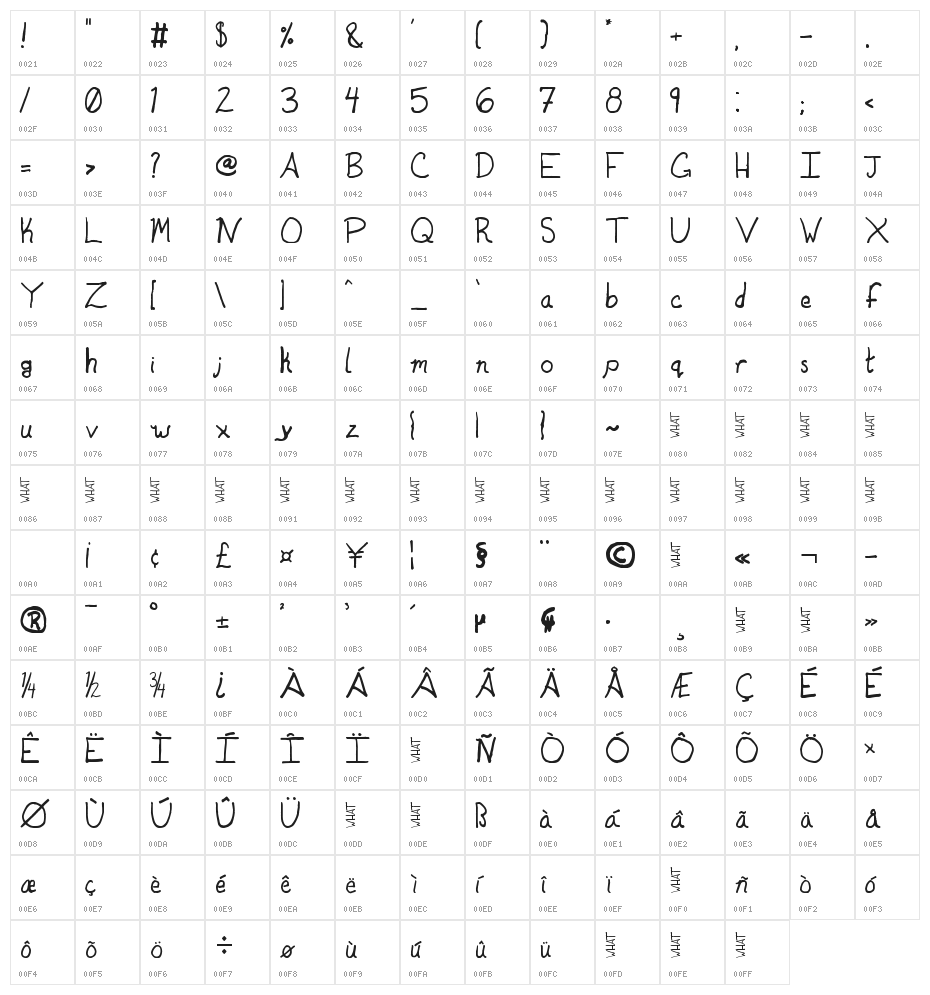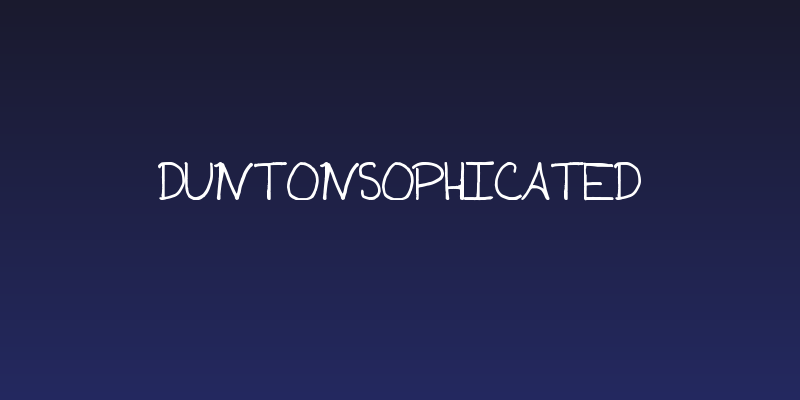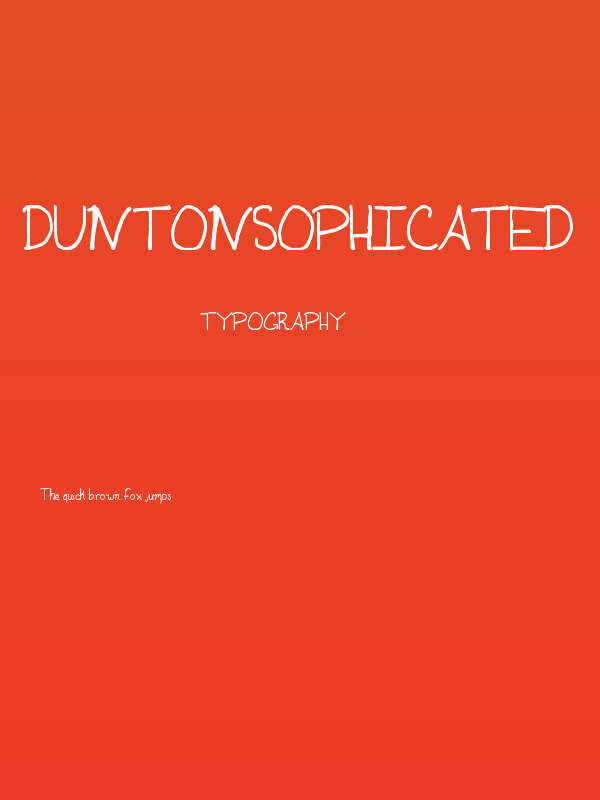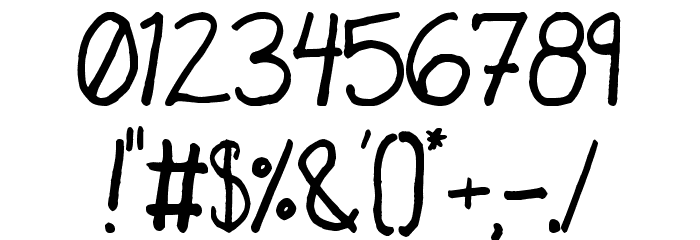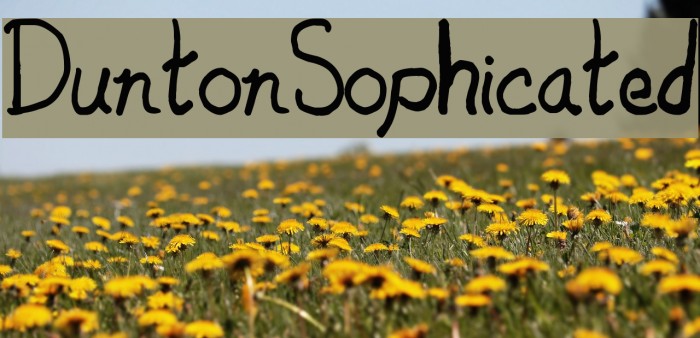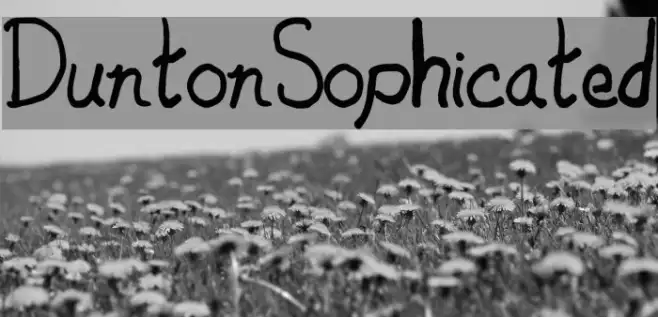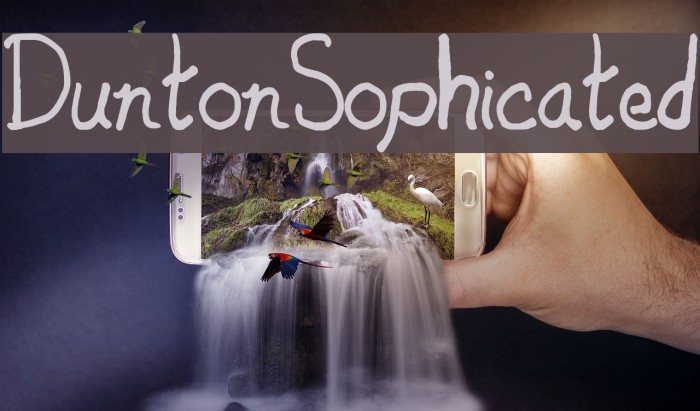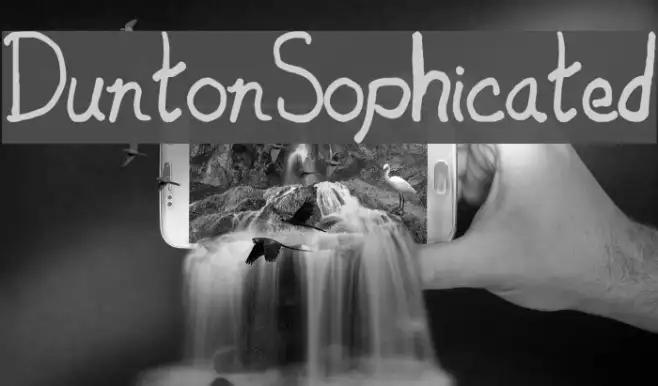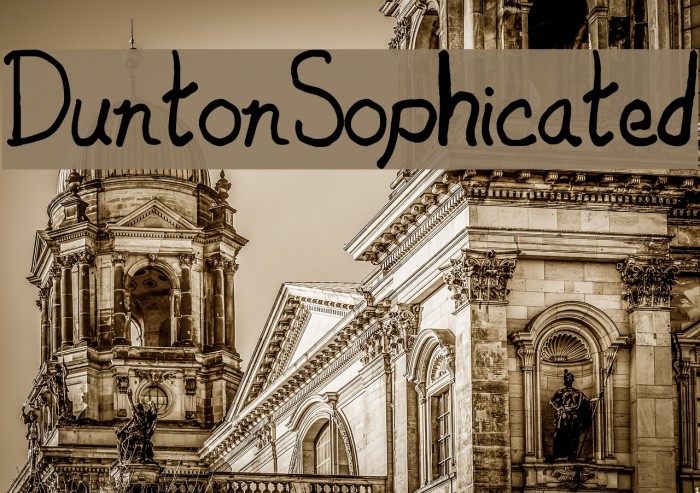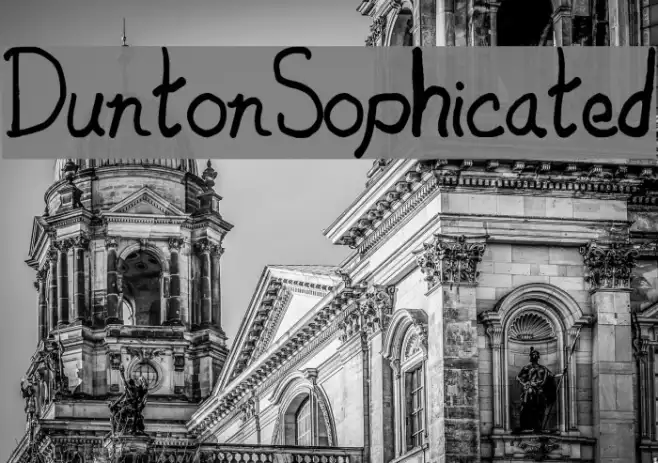
DuntonSophicated Font
DuntonSophicated Description
This font exudes a playful and informal charm, characterized by its hand-drawn appearance. The letters are unevenly shaped, giving it a whimsical and artistic feel. The strokes are varied in thickness, adding to its casual and relaxed style. The uppercase and lowercase letters maintain a consistent flow, while the numerals and special characters complement the overall aesthetic. This font is perfect for projects that require a touch of creativity and individuality, making it ideal for artistic endeavors, children's books, or any design that seeks to convey a sense of fun and spontaneity.
| Proposed Projects | Ideal for children's books, artistic projects, greeting cards, and creative branding. |